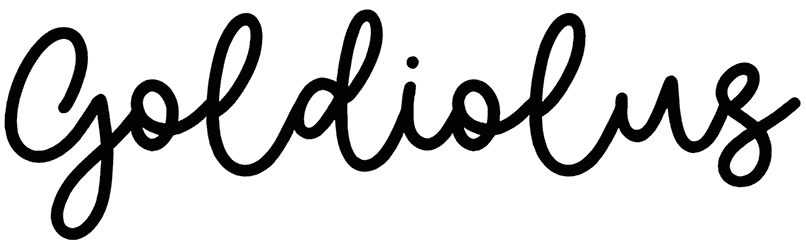
Goldiolus Font
Goldiolus is a cursive script font that has the true potential to bring all of your creative ideas, including movie posters, flyers, brochures, logos, or product packaging, to a higher level and make them look more interesting to the audience.
Due to its wavy style, this fast handwritten font carries a sense of delicacy, viability, drama, or momentum. Just in case you require another font the same as this one, don’t hesitate to visit our lovely font collection.